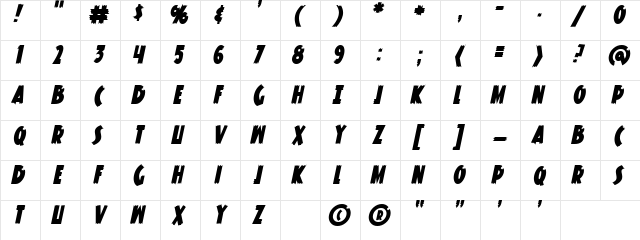
Complete Knuckle Sandwich Classic Italic glyph index. Displaying only characters natively supported by Knuckle Sandwich Classic Italic font.
Knuckle Sandwich Classic wears its vintage influences proudly, with letterforms that recall mid-century signage, classic packaging, and nostalgia-driven design. The slanted form adds forward momentum and visual energy.
Font Pairing: Combine Knuckle Sandwich Classic with a simple slab or neutral sans - period-accurate companions reinforce the vintage feel without competing for attention.
Pro Tip: Lean into Knuckle Sandwich Classic's period character by pairing it with aged paper textures, muted colour palettes, and vintage illustration styles.